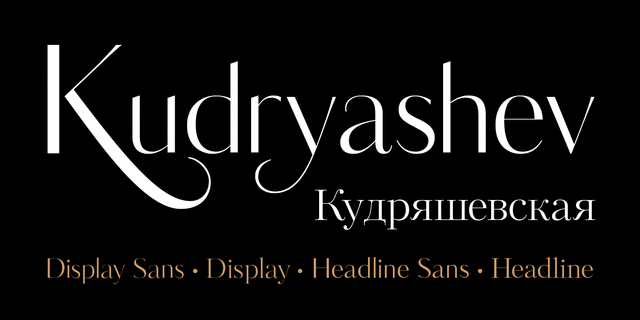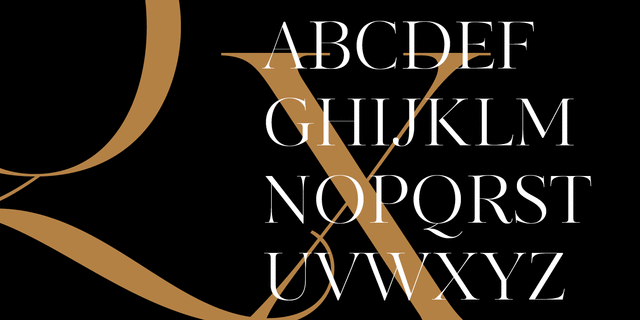
About Kudryashev Display is a set of light and high-contrast faces based on Kudryashev text typeface. In addition to Kudryashev Display and Kudryashev Headline faces, the type family includes also two sans-serif faces of the same weight and contrast, with some alternates. The graceful nature of the typeface, along with carefully designed details, allows to use it in large point sizes, for example in magazine layouts, packaging design and in many other ways. The serif styles were designed by Olga Umpeleva in 2011, the sans styles were created by Isabella Chaeva in 2015 with the participation of Alexandra Korolkova. The typeface was released by ParaType in 2015.
Features of font family Kudryashev DisplayClose to historical original:
Associations for font family Kudryashev DisplayTypeface personality and character:
noble, conservative, thin, traditional, classic, artistic, silver, educated, sharp, masterful, accurate, aristocratic, elite, correct, comme il faut, pretentious, harmonious, historical, elegant, refined, original, rich, expensive, luxurious, precious, select, voiced, beautiful, high-quality, cultural, musical, salon art, humanitarian, proud, creative, sexy, gentlemanly, Glamorous, distinctive, delicate, clean, easy, chilly, fresh, spectacular, fashionable, wedding, romantic
library, art, museum, literature, aesthetics, prose, poetry, music, wine, luxury, jeweler, decoration, opera, symphony, clock, ballet, beauty shop, salon, silver, comme il faut, painting, glamour, Instagram, concert, perfumery, landscape, heraldry, castle, lotion, beauty, Eau de Toilette, shampoo, cosmetics, fashion, Premium, jewelry, laying, restaurant, romance, love, dress, clothes, Christmas, sea, perfume, boutique, cards Typeface associated with age: